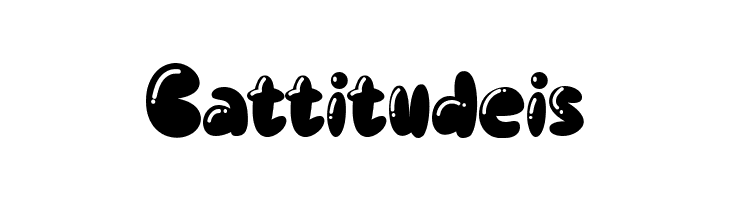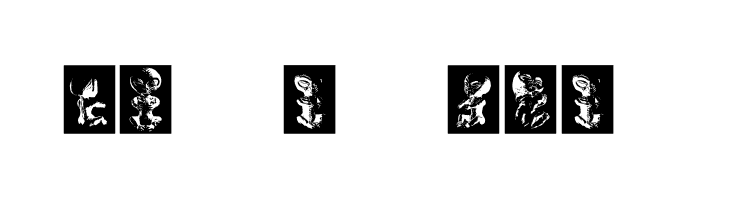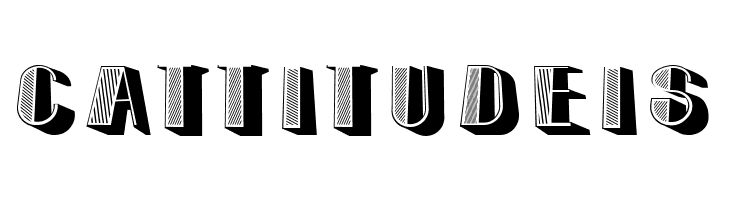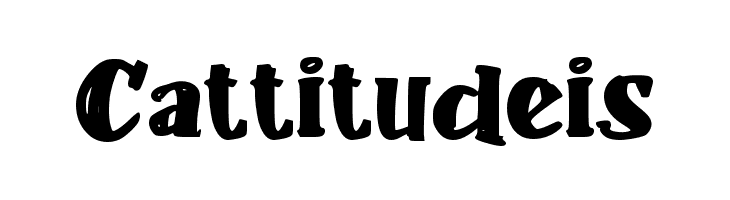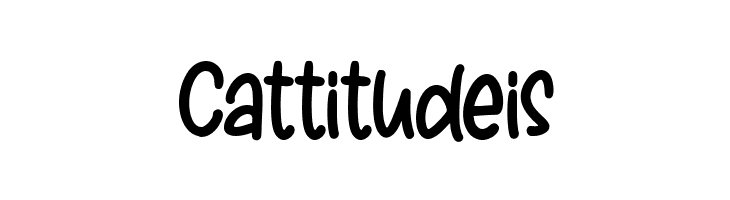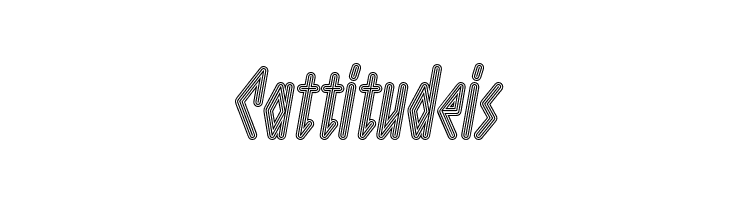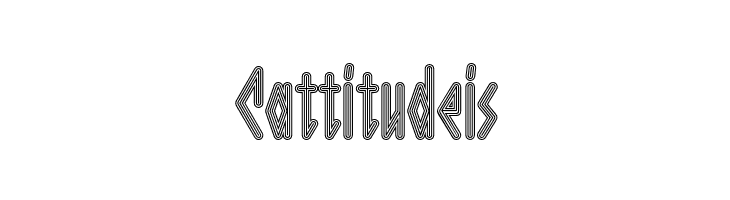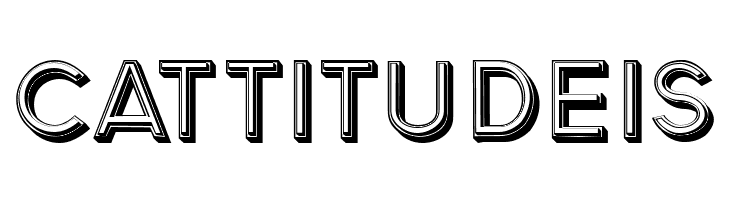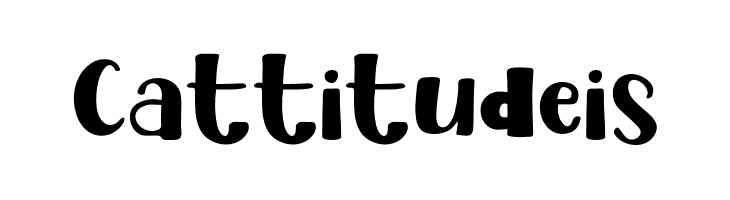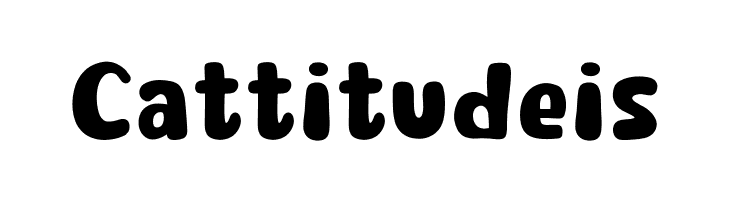
An elegant script font with flowing, cursive letterforms and decorative flourishes.
A dynamic and flowing script font with elegant, handwritten strokes.
A bold, bubble-like font with a playful and modern style.
A playful, bold font with rounded, chunky letters perfect for creative projects.
A vintage-inspired font with sharp serifs and art deco elements.
A playful and whimsical font with vintage theatrical flair.
A bold, playful font with thick, uneven strokes and whimsical curves.
A graceful, cursive font with elegant, flowing lines and calligraphic style.
A dynamic, handwritten script font with bold, fluid strokes.
A bold, three-dimensional font with strong outlines and shadow effects.
A playful, illustrative font featuring baby alien characters as glyphs.
A playful, slanted font with outlined, layered characters and a modern geometric style.
A decorative, geometric font with outlined characters and a modern aesthetic.
A playful, slanted, outlined font with a dynamic and bold appearance.
A decorative, geometric font with a three-dimensional line effect.
A playful, slanted, and layered font with a dynamic, three-dimensional appearance.
A decorative, multi-layered outlined font with a geometric and modern style.
A playful and whimsical font with curly, decorative letterforms.
A modern, tall, and narrow sans-serif font with consistent stroke width.
A modern, italic font with a sleek, dynamic style.
A bold, expressive handwritten font with dynamic strokes and a lively aesthetic.
A bold, handwritten font with a lively and energetic style.
A playful, bold font with rounded, thick strokes and a whimsical touch.
A playful, bold handwritten font with smooth, rounded edges and a friendly appearance.
A playful and whimsical script font with decorative flourishes.
A playful, casual handwritten font with a whimsical and informal style.
A playful, hand-drawn font with a childlike, whimsical style.
A playful, hand-drawn font with bold, rounded characters and a whimsical style.
A playful, hand-drawn font with bold, rounded strokes and a whimsical style.
A bold, playful font with a 3D effect and intricate line patterns.
A graceful script font with elegant loops and smooth connections.
A playful, handwritten font with bold, rounded characters and a whimsical style.